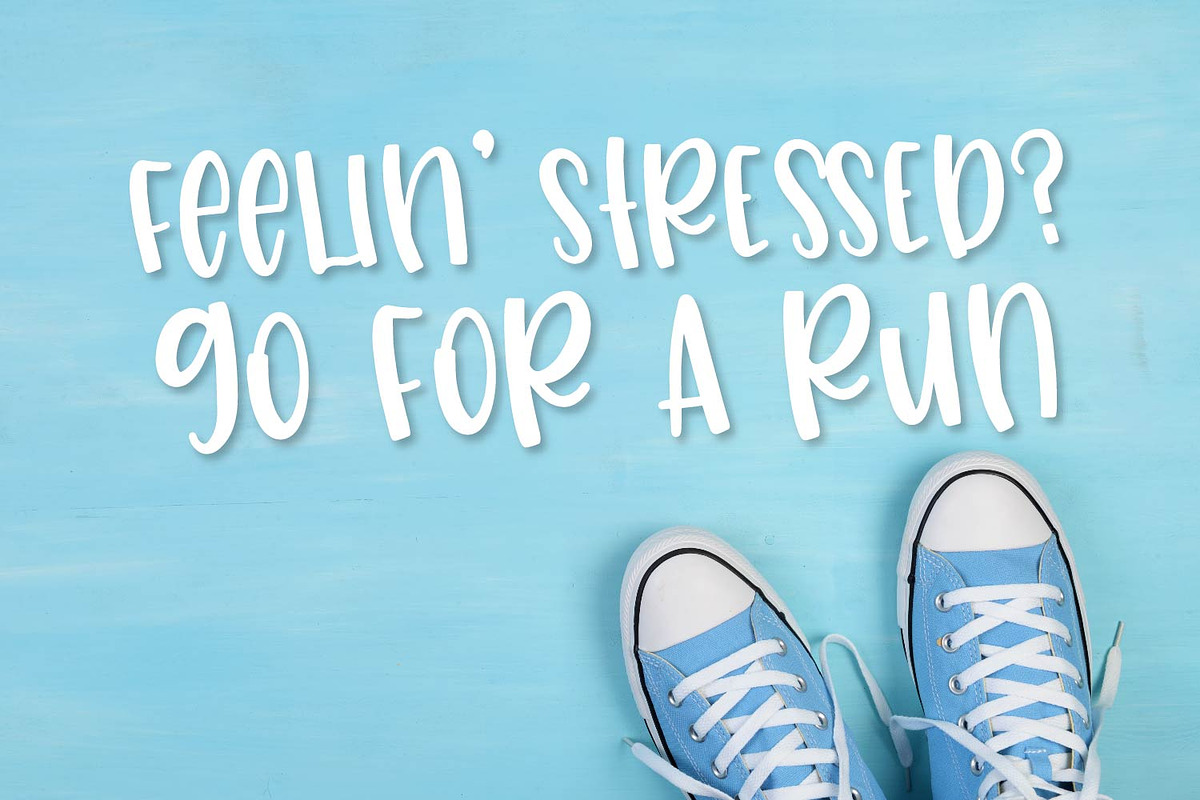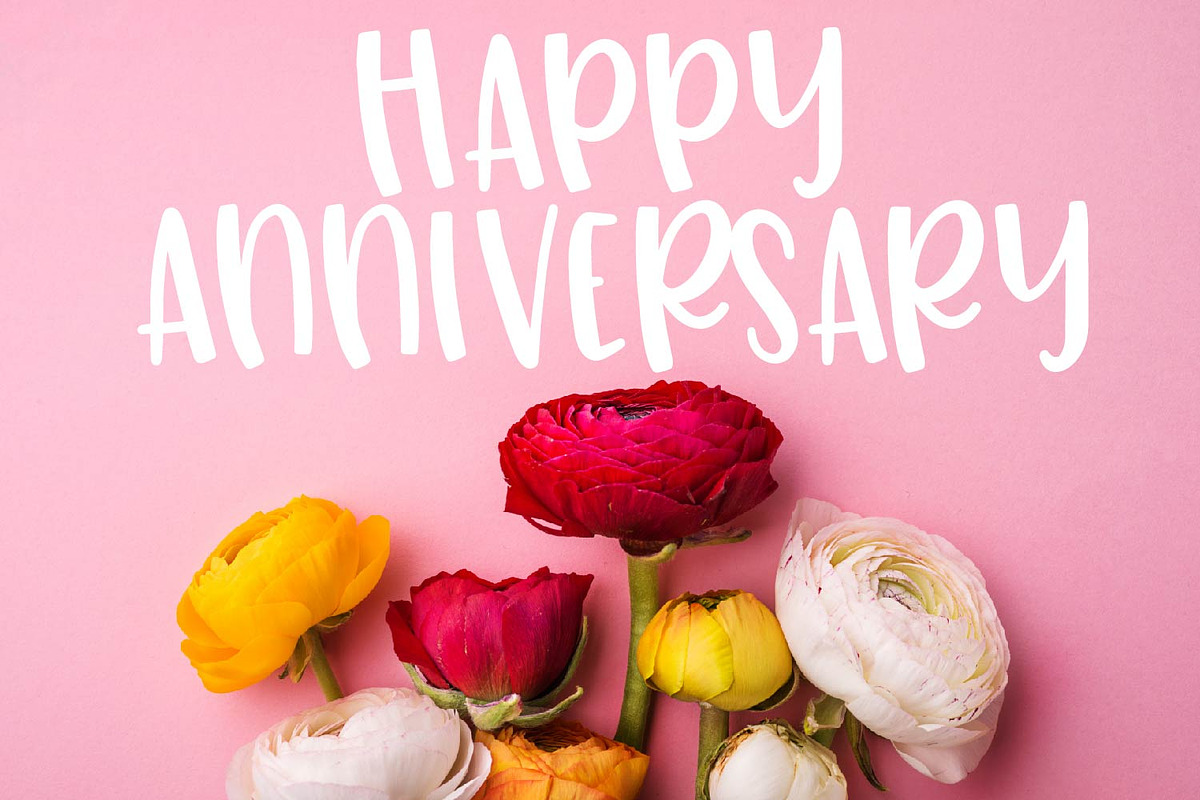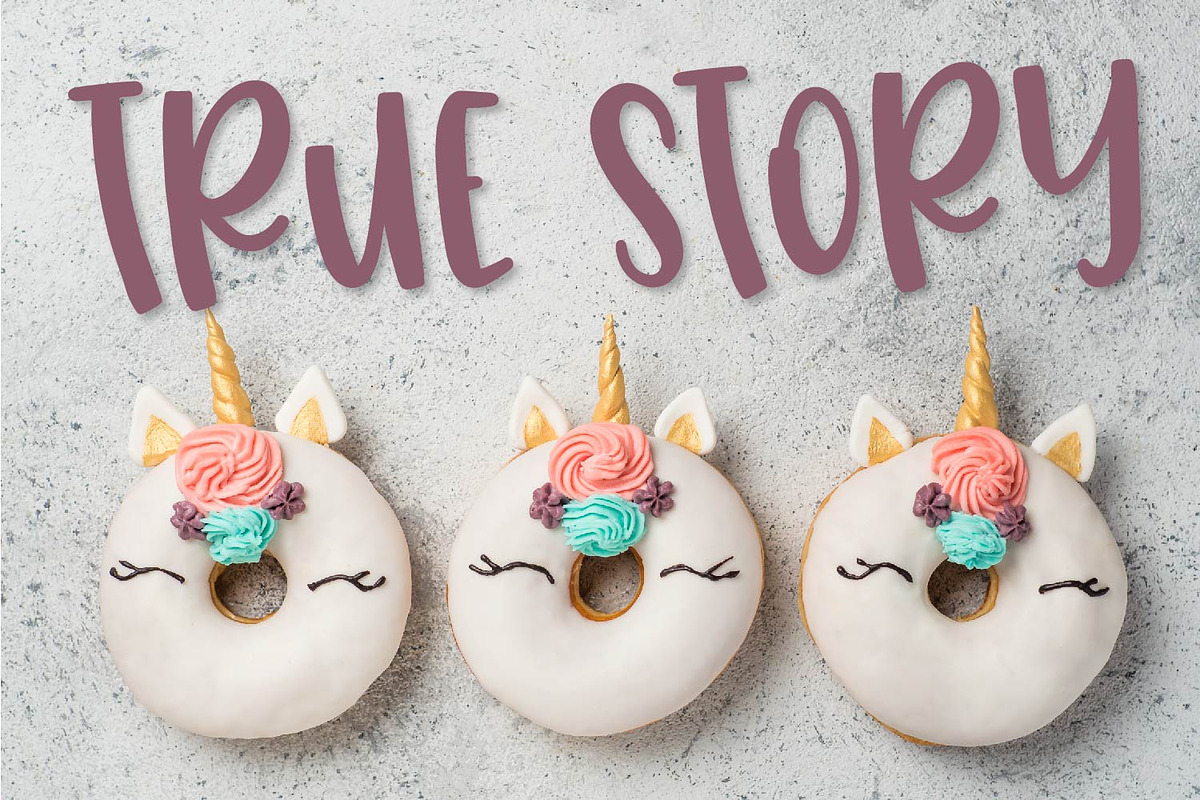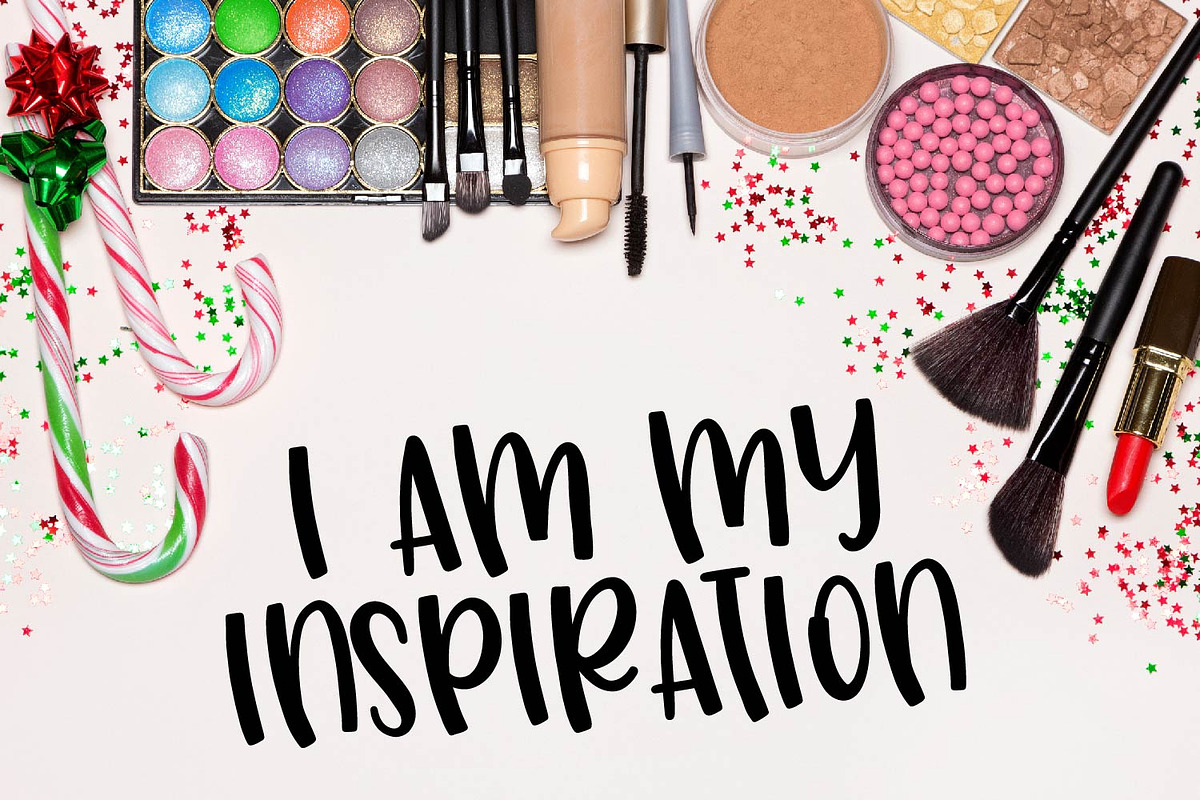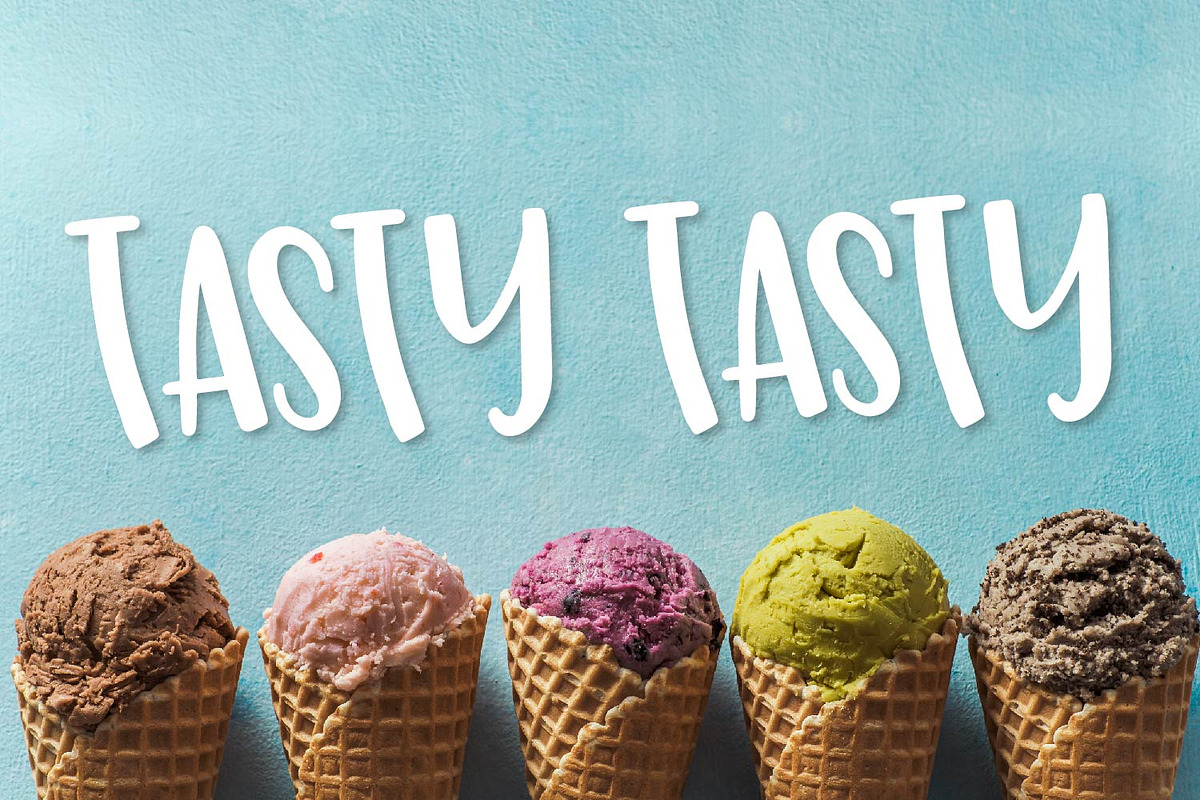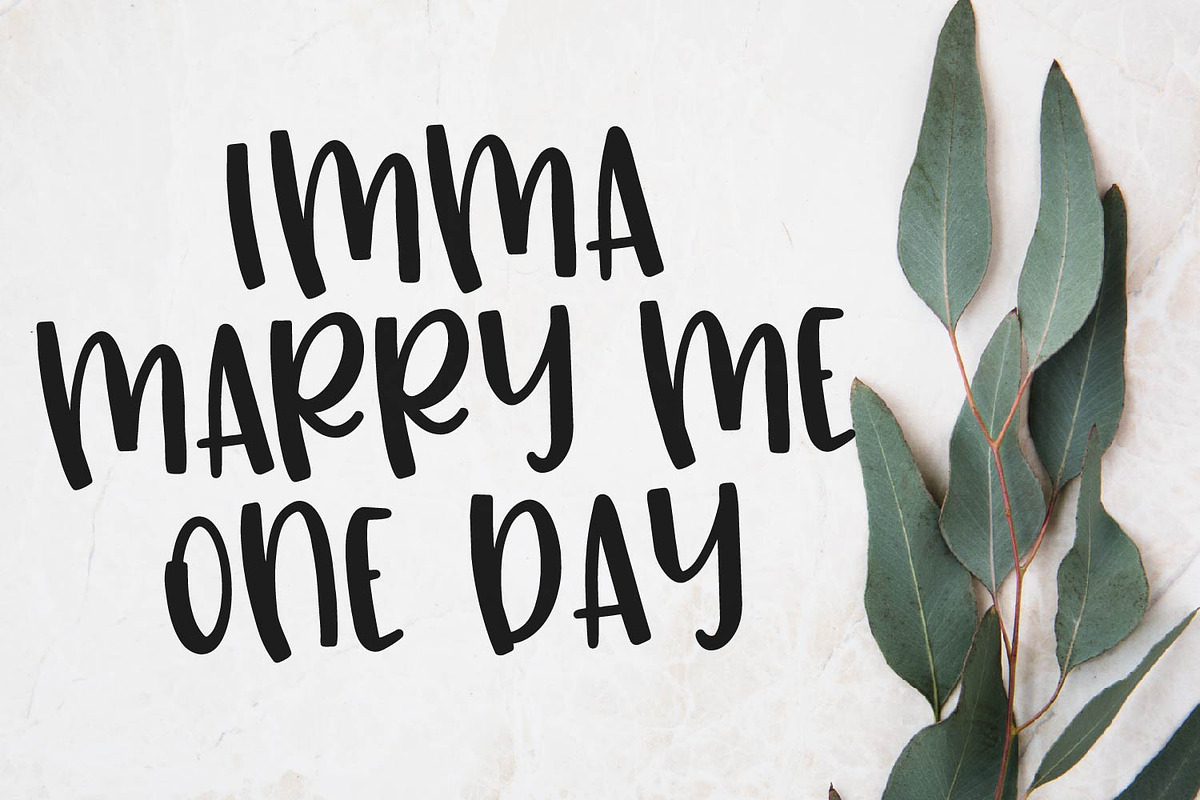
Big Mad - A Hand Lettered Font
Big Mad A Hand Lettered Font by CraftyLittleNodes is a font selected for branding, posters, packaging, typography.
Why Big Mad - A Hand Lettered Font is worth a look
Big Mad - A Hand Lettered Font by CraftyLittleNodes fits naturally into Branding, posters, packaging, typography.